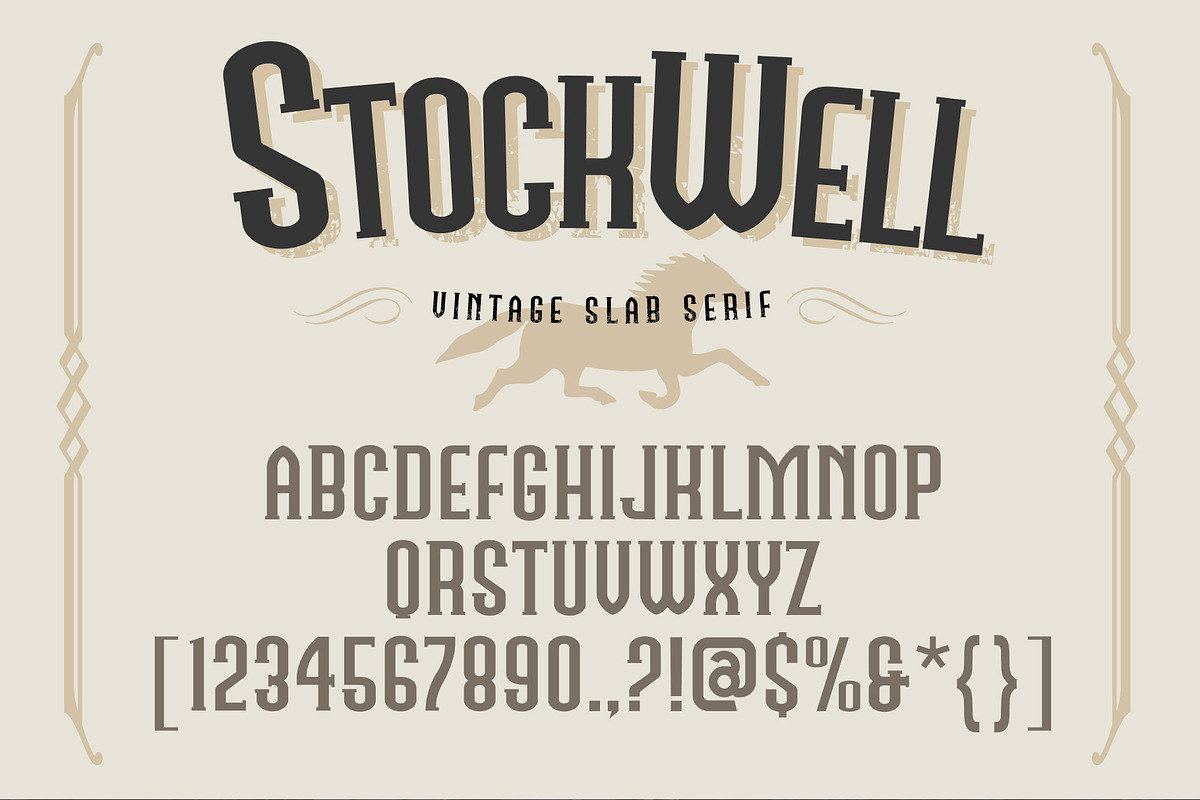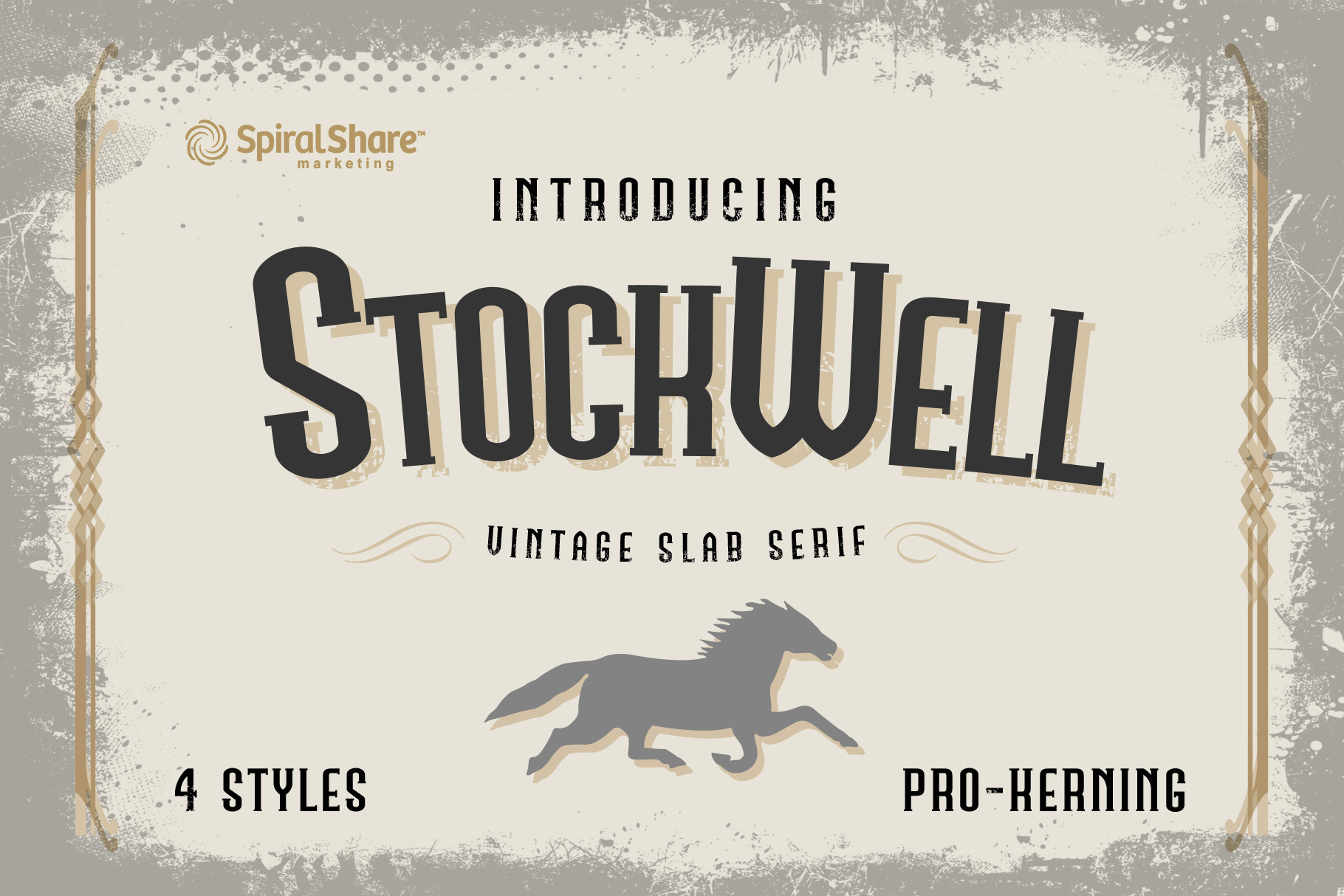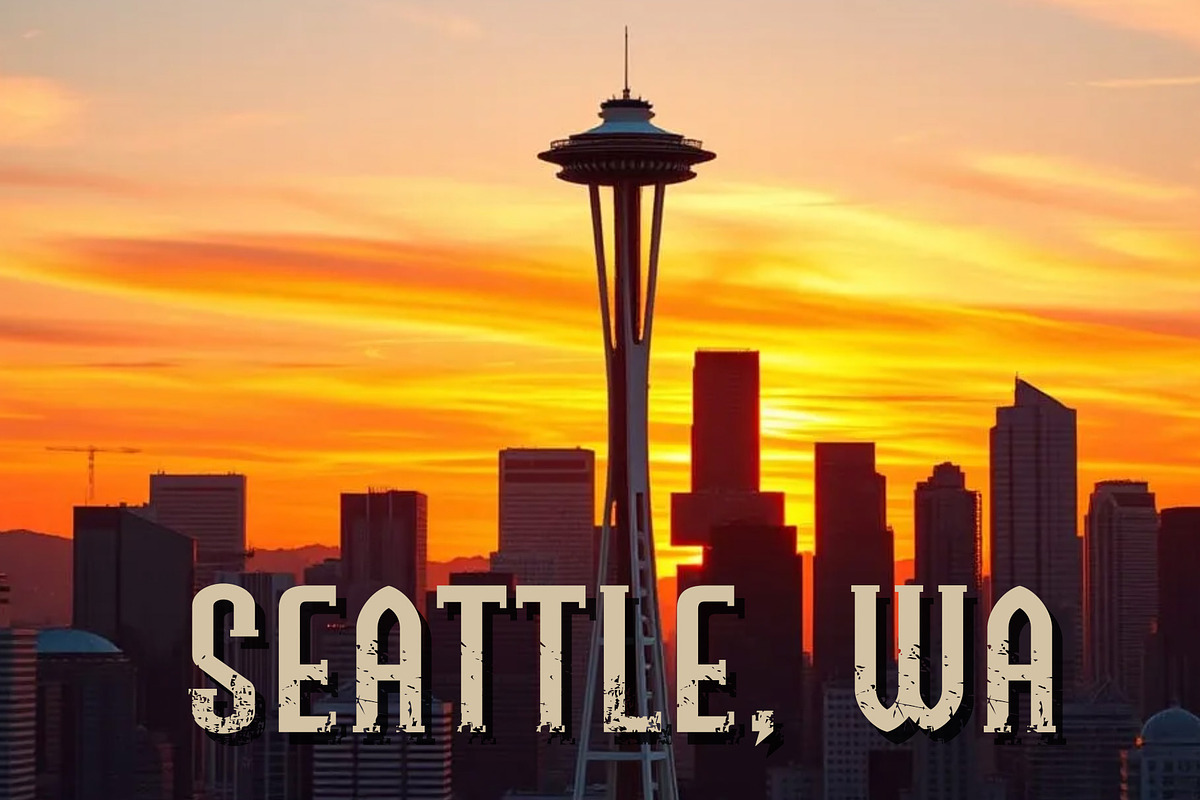
Stockwell Vintage Slab Serif Font
Introducing STOCKWELL Vintage Slab Serif Font Typeface great for designing templates, brochures, videos, advertising branding, logos, invitation, layout design, elegant crafting, posters, and more.